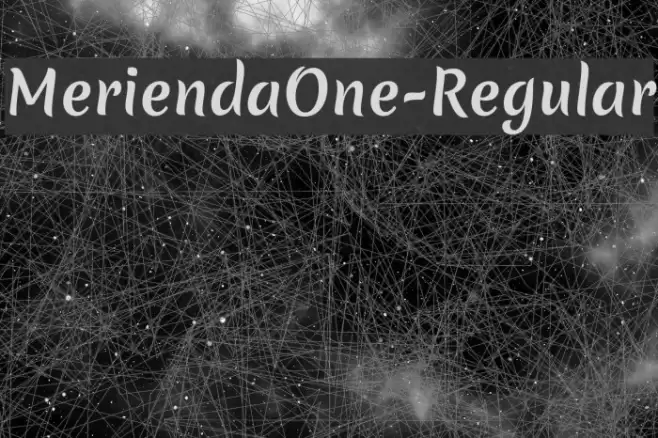
MeriendaOne-Regular Font
MeriendaOne-Regular Description
This font features a playful and casual script style with a handwritten feel. The letters are slightly slanted, adding a dynamic and lively touch to the text. The strokes are smooth and rounded, giving it a friendly and approachable appearance. The uppercase letters are bold and prominent, while the lowercase letters maintain a consistent flow, enhancing readability. The numerals and special characters are designed to match the overall style, ensuring a cohesive look across different uses. This font is ideal for projects that require a personal and informal touch, such as invitations, greeting cards, or playful branding.
A playful, casual script font with a handwritten feel and smooth, rounded strokes from Uncategorized fonts.
- Proposed Projects: Ideal for invitations, greeting cards, playful branding, and informal designs.
- Overall Style: Casual, Playful
- Use Case: Headlines, Logos, Invitations